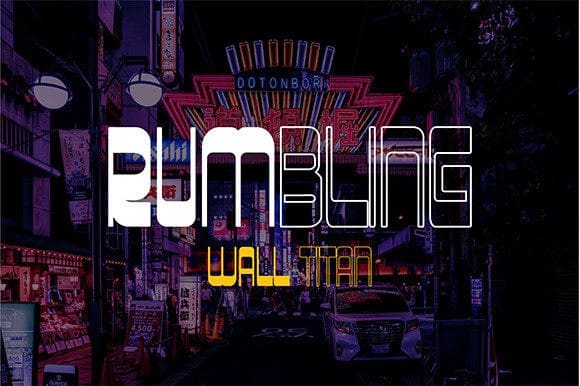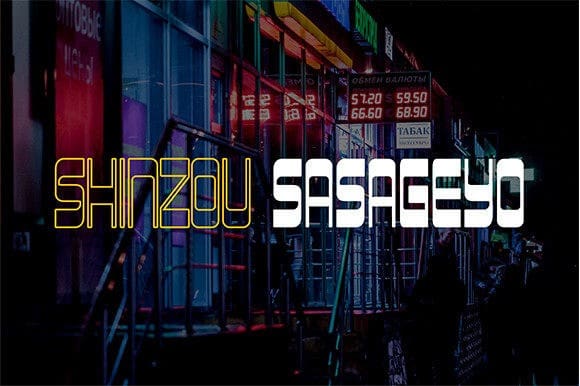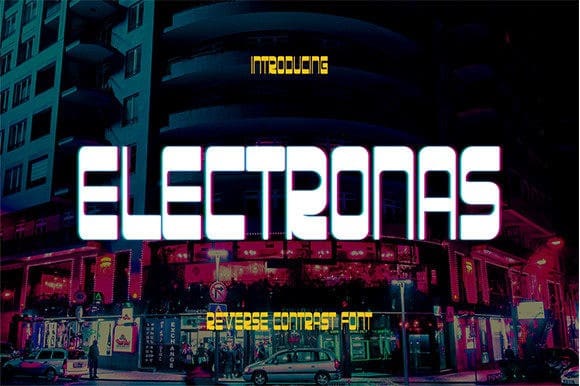
Electronas Display Font
Electronas Display Font, is a cool, robotic and squared lettered display font. This font is ideal for writing web designs, business cards, or pretty much anything else that requires a unique and modern touch.